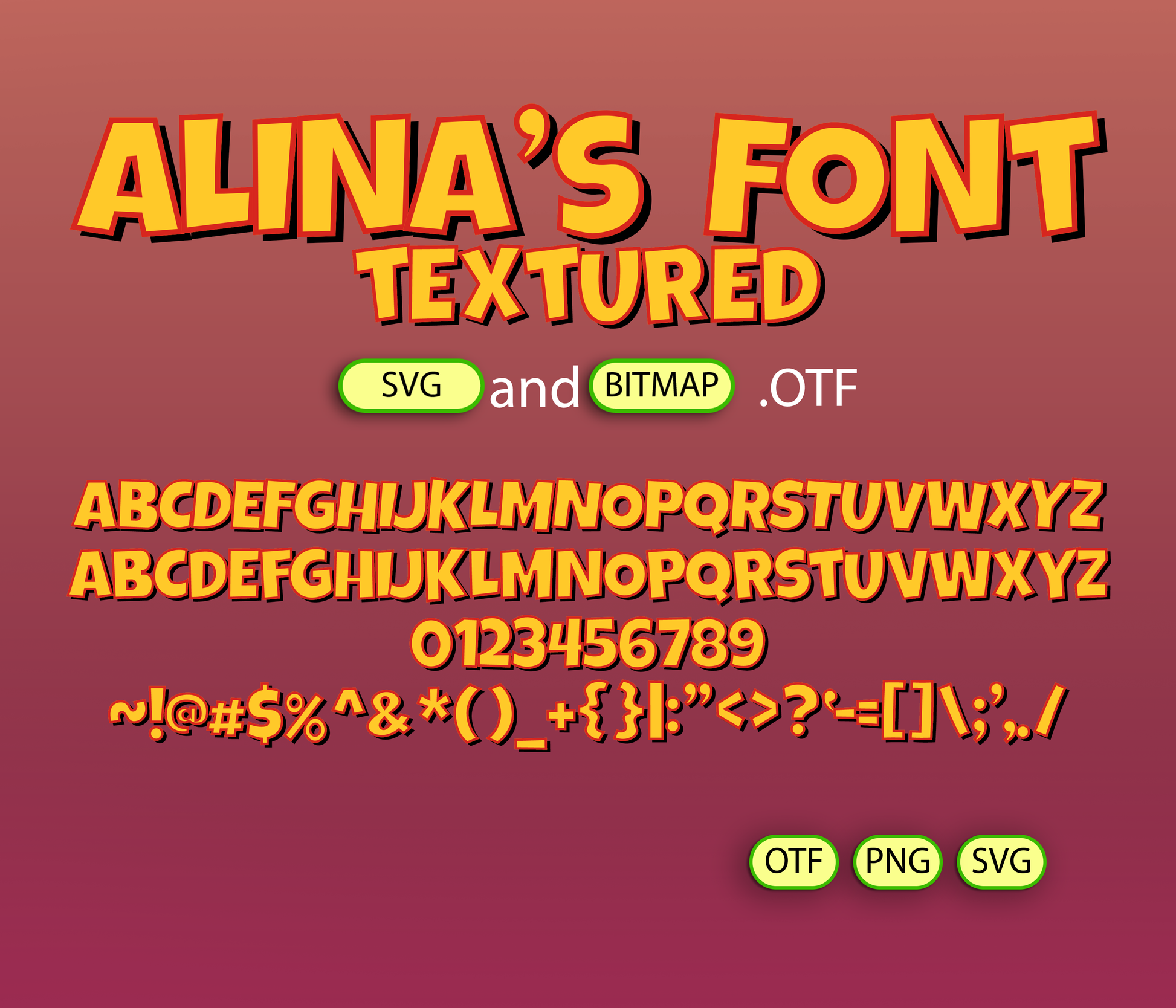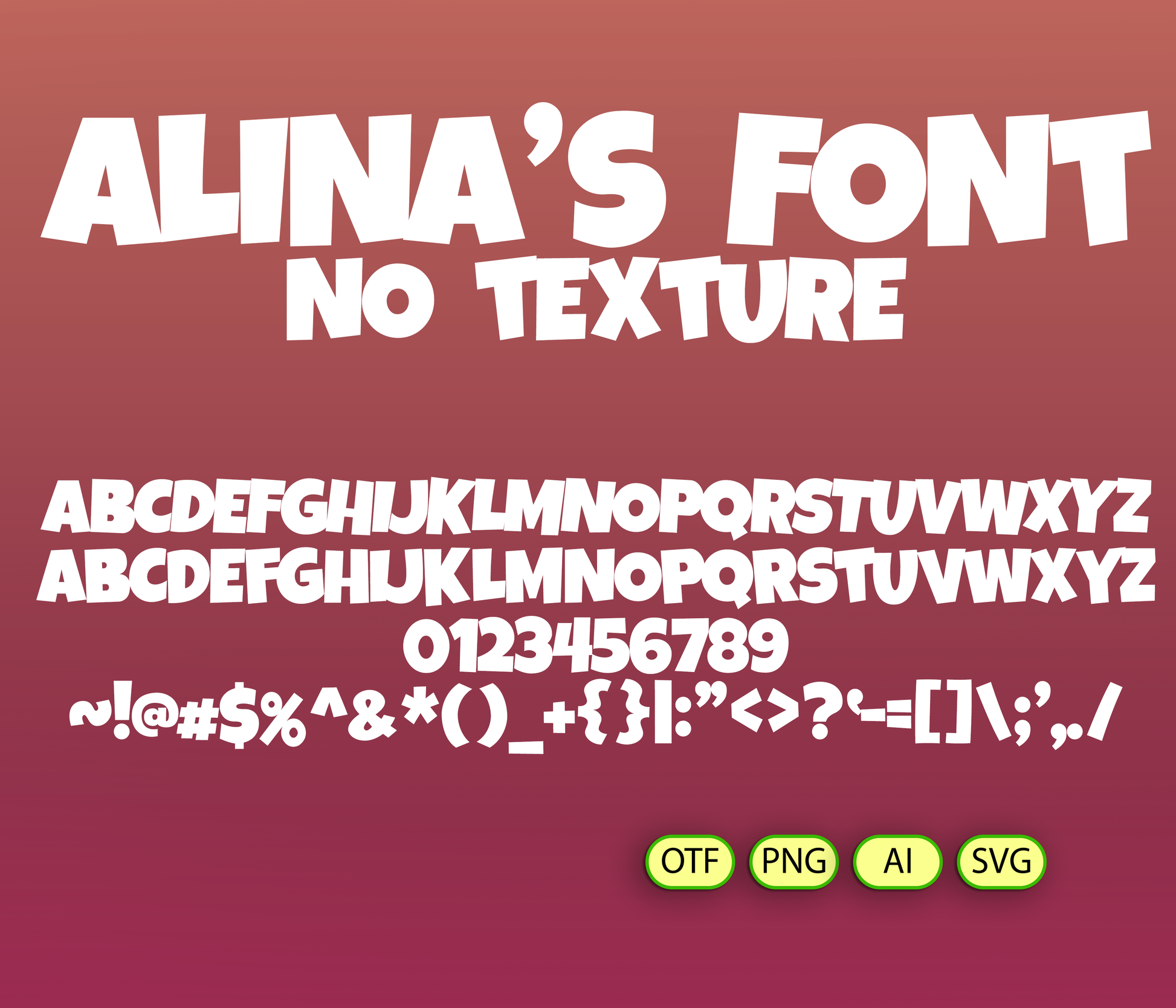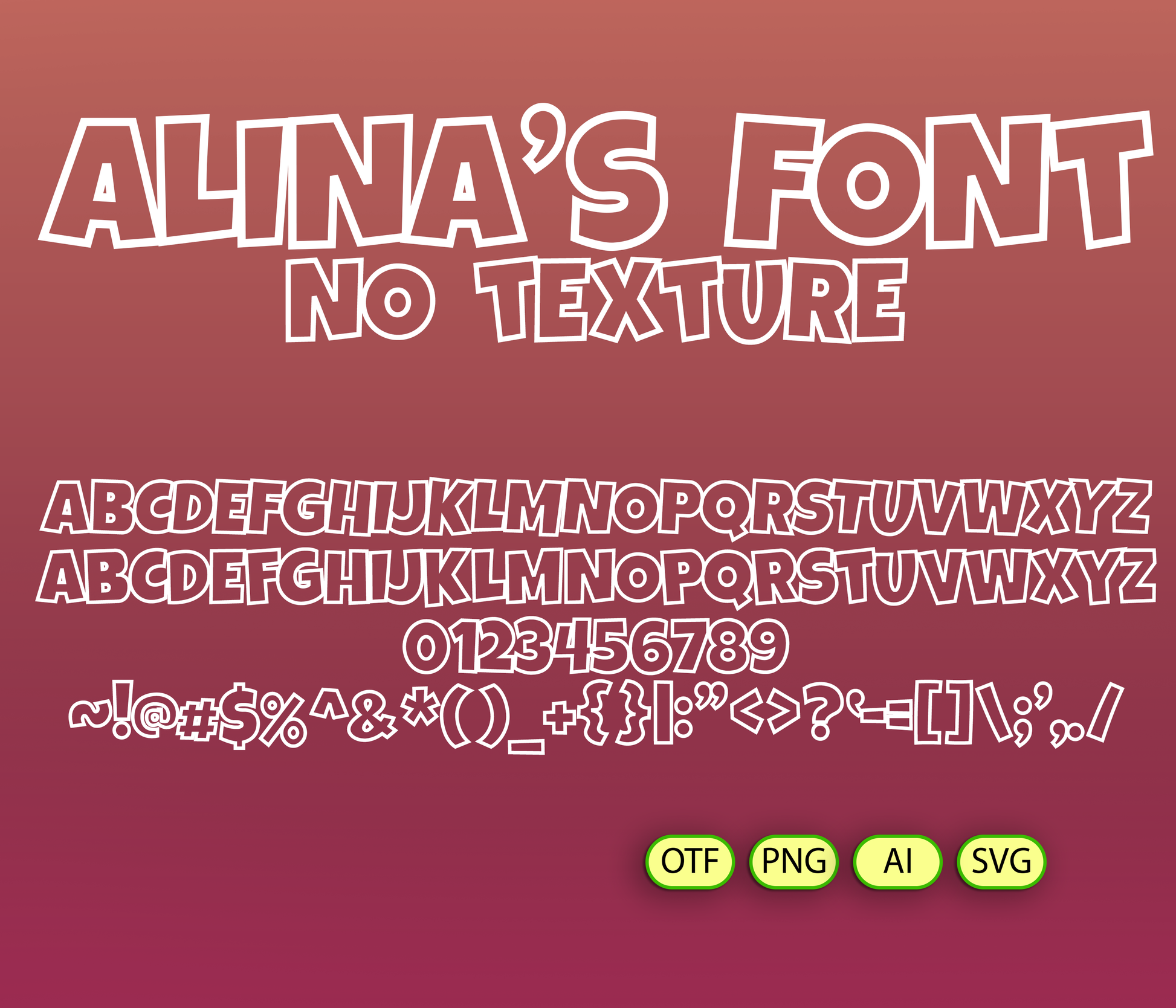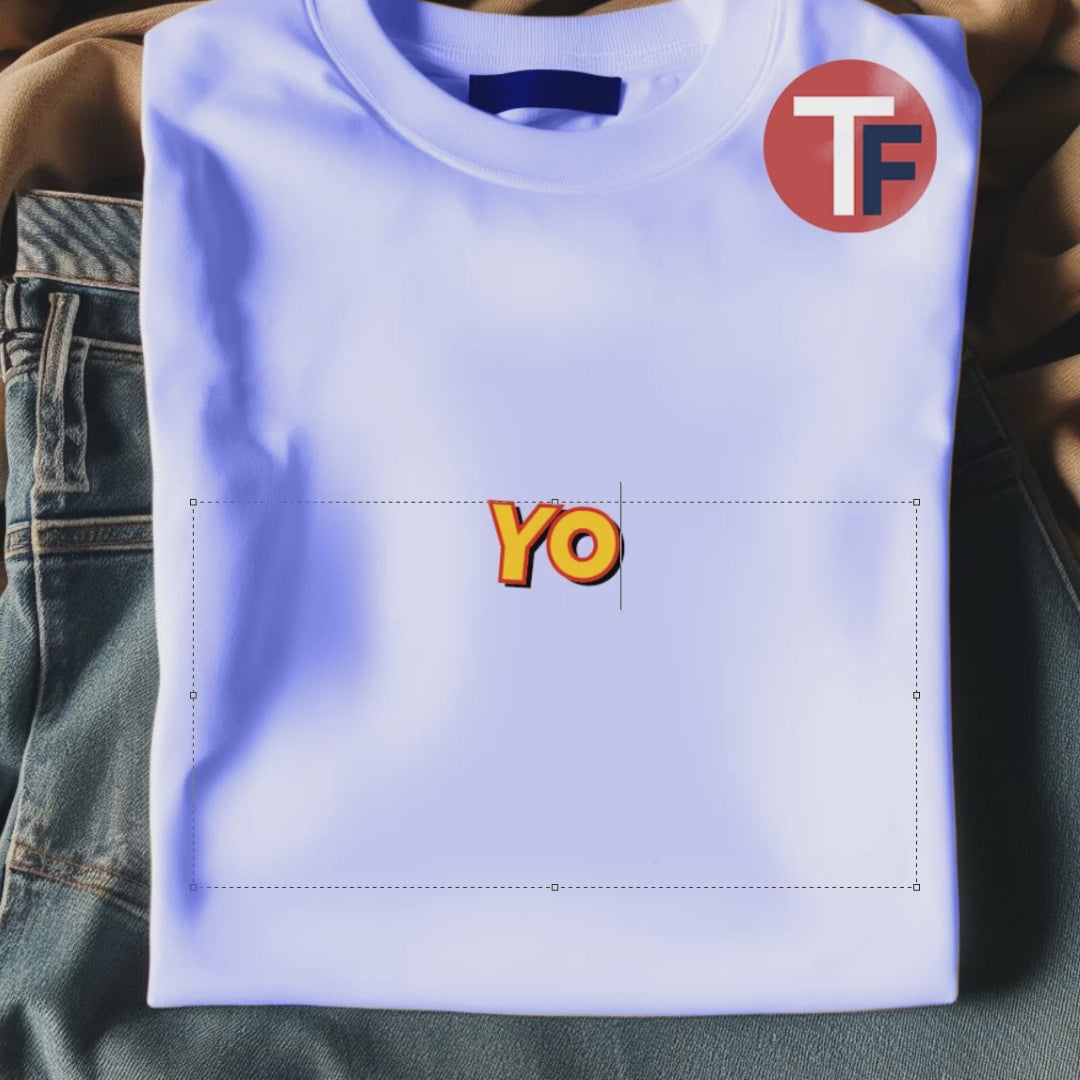
Flapper Girl Font Textured Bundle
Add a Touch of Vintage Glamour with the Flapper Girl Font
Step into the glitzy and nostalgic world of the golden age of animation with our specially designed font, inspired by the iconic flapper girl. Perfect for fans, event organizers, and designers looking to infuse their projects with a sense of retro charm and playful elegance, this font captures the whimsical and glamorous essence of the beloved character. Whether you're creating event invitations, designing themed merchandise, or crafting digital content, our Flapper Girl font ensures your projects shine with the classic appeal and lively spirit of this beloved character.
Our Flapper Girl-inspired font features playful, curvy lines and elegant details that reflect the vintage, 1930s aesthetic of the character. This versatile font is ideal for a variety of applications:
To ensure maximum usability and flexibility, our Flapper Girl-inspired font includes both textured and non-textured variants. The non-textured version is particularly beneficial, ensuring compatibility with all types of software, including Canva. This feature allows users of all skill levels to seamlessly incorporate the font into their designs, enhancing accessibility and ease of use across various digital and print platforms.
Many people seek out a Flapper Girl Font generator online to mimic the look of this font. Steer clear! No font generator can match the quality of this Flapper Girl Font, which comes in two versatile versions: a textured colored version and a simple version. This is particularly beneficial if you plan to use it with a cutting machine.
Our Flapper Girl font not only pays homage to the beloved cartoon icon but also empowers you to infuse your designs with her playful and glamorous spirit. Whether you’re crafting promotional materials, designing unique merchandise, or adding a touch of vintage charm to personal projects, this font allows you to communicate with the elegance and whimsy that define this classic character. Ready to bring a bit of classic animation magic to your creative projects? This font is your key to unlocking a world of retro style and fun.